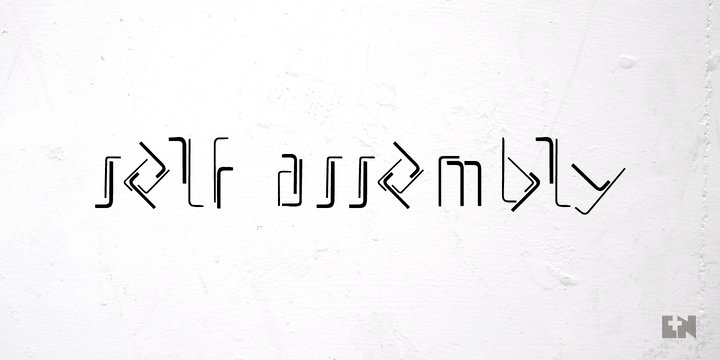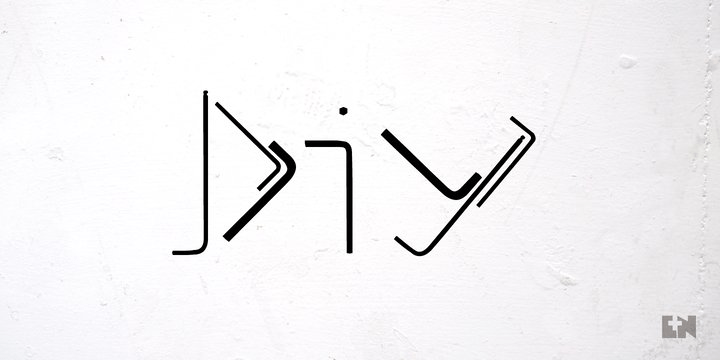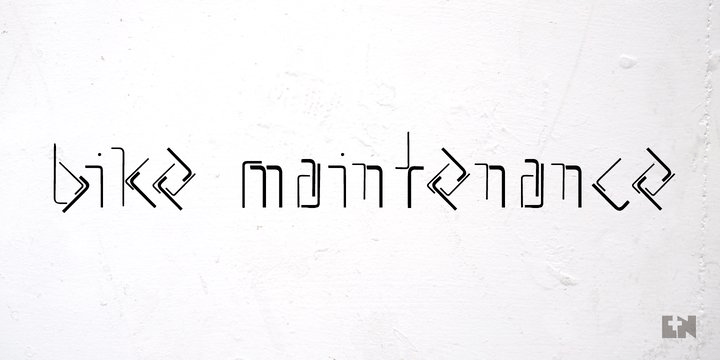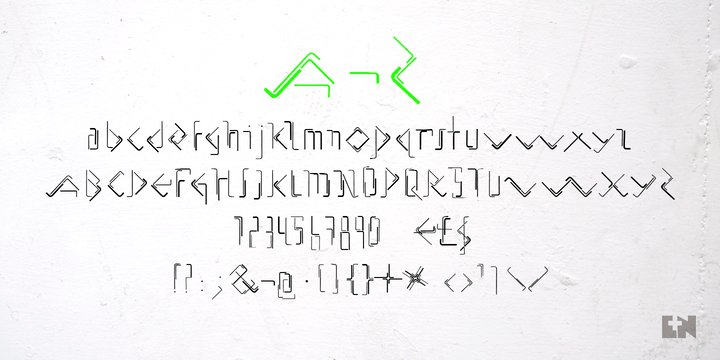
About Allen Keys
This typeface was made up by combining playfully assembling allen keys to shape individual characters. Rummaging through the toolbox recently, I was surprised by how many allen keys I had from years of assembling flat-pack furniture. After some experimenting…